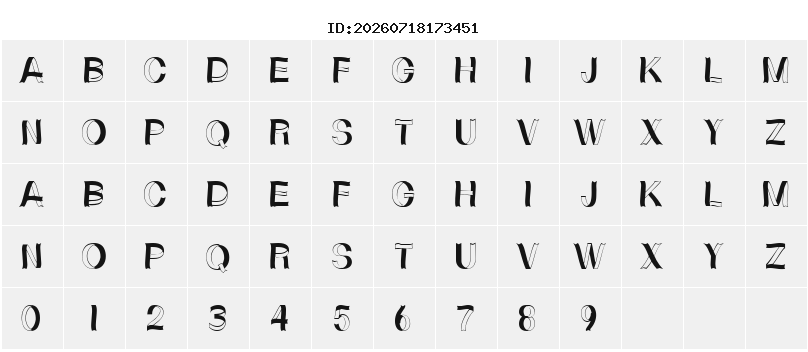
About CurlyRibbons.ttf
CurlyRibbons.ttf is a modern, elegant sans-serif font designed for ultimate readability and visual harmony. Perfect for branding, headlines, web design, and print materials.